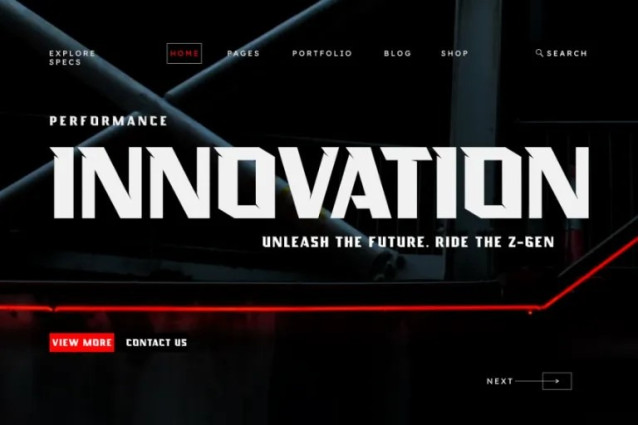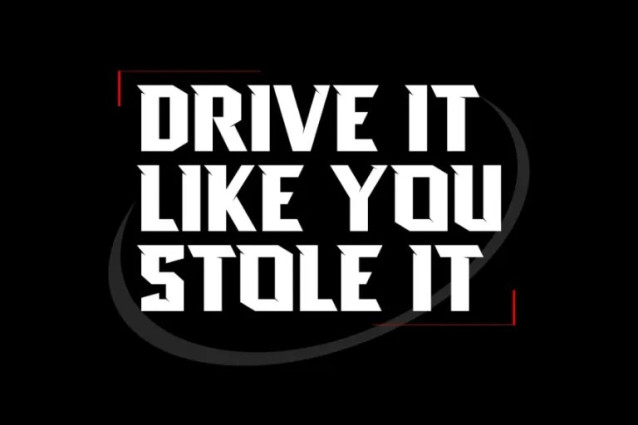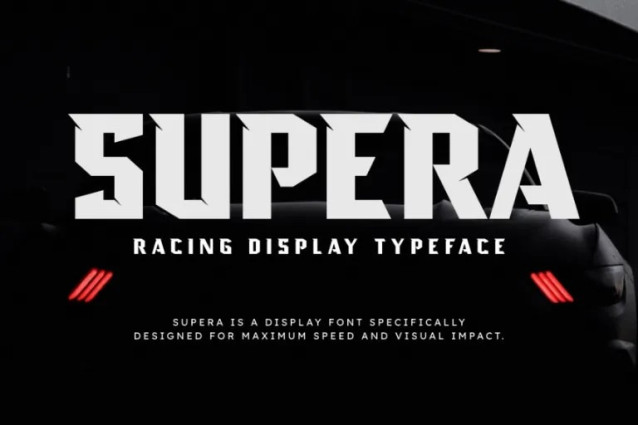
Supera Font
Supera Font is a racing display typeface inspired by high-speed machines, sharp aerodynamic forms, and the bold aesthetics of modern motorsport. With aggressive angles, blocky cuts, and strong futuristic styling, this font is built to deliver maximum impact in any design that demands power and speed.